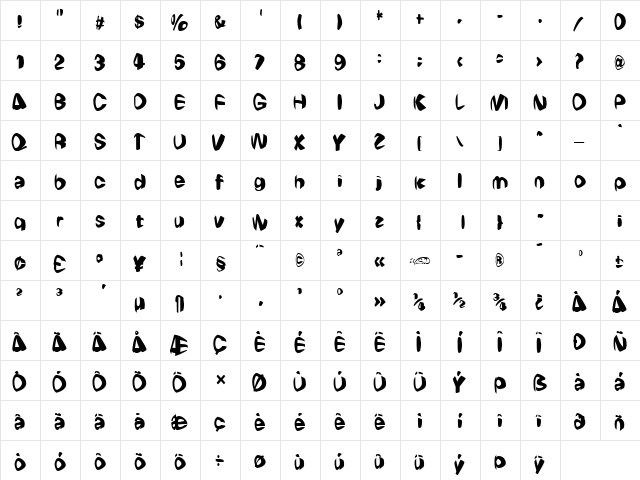
Weirdo Regular
Design Context for Weirdo Typeface
Weirdo is a composed and adaptable typeface that performs quietly and consistently across a wide range of design contexts.